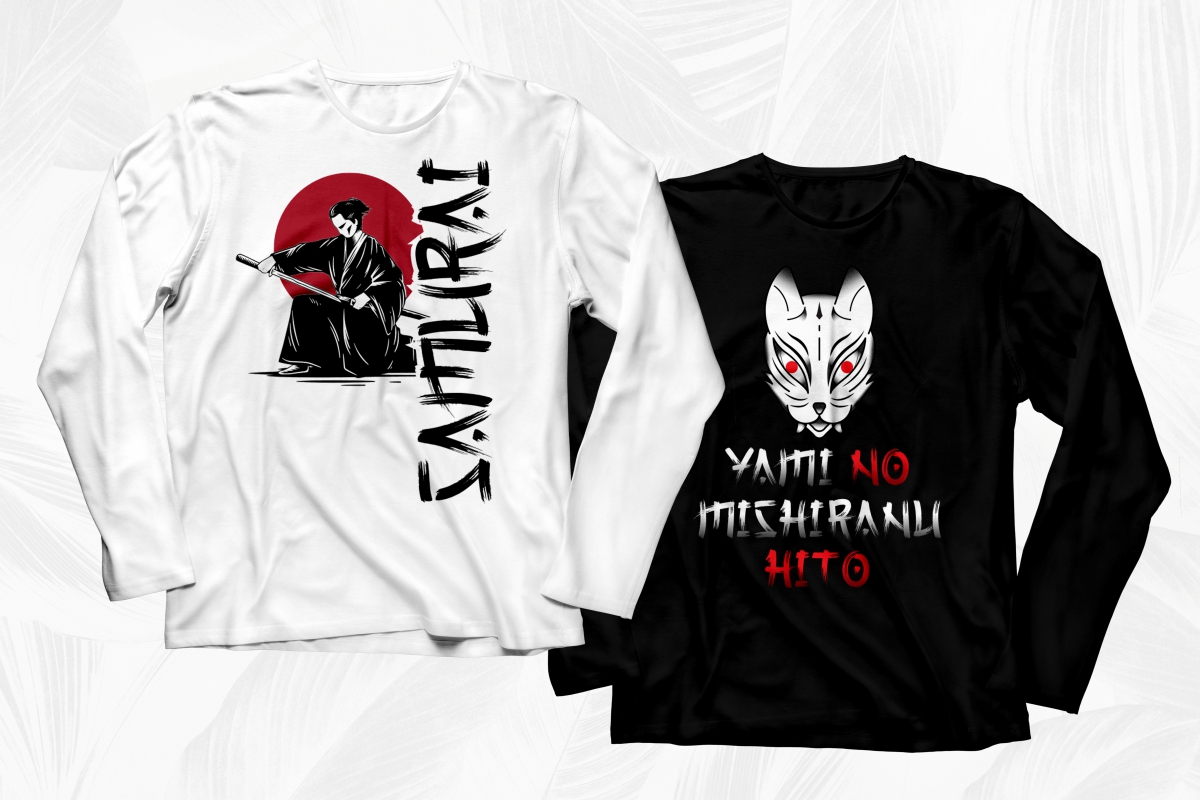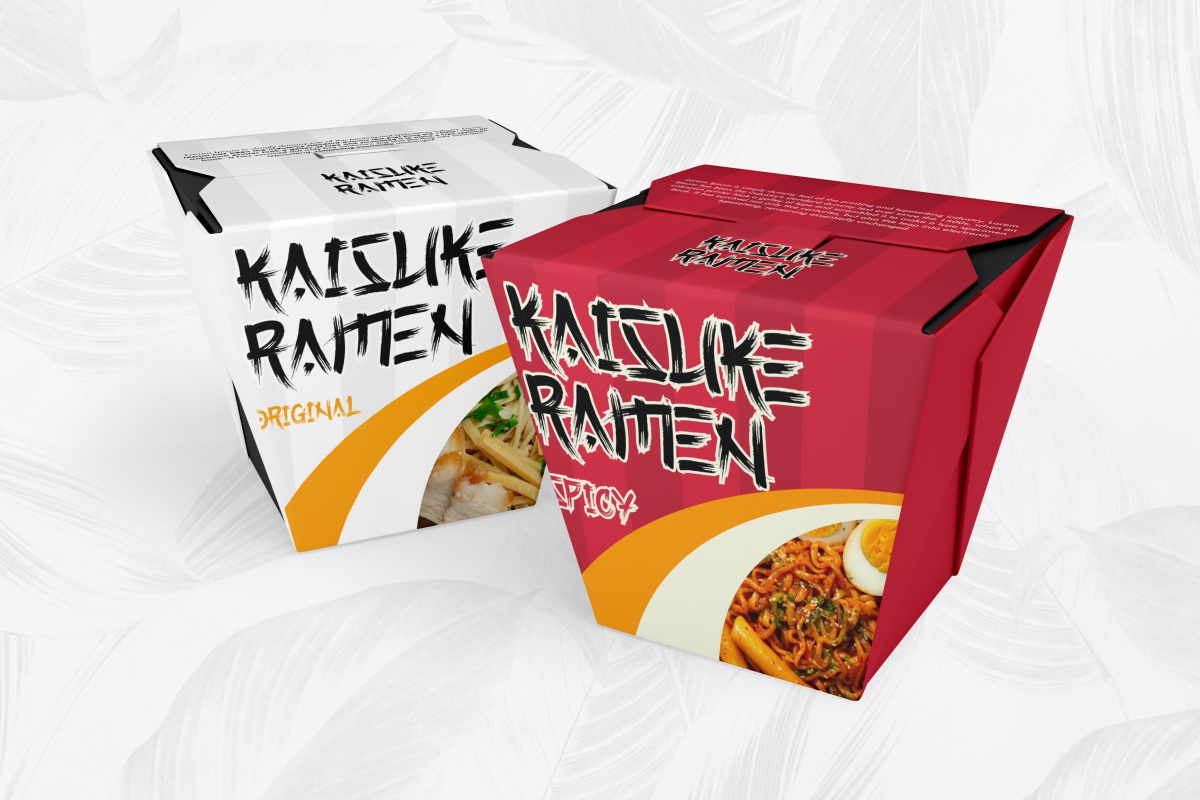
Onsen Japan Font
Onsen Japan Brush Font
It’s a brush display font with special Japanese look made by NoahType. This font will add a personal handwriting look twist to any design project. This font is crafted carefully in every its single scratch, created to look as close to a natural handwritten script so that it can create the perfect combination on each glyph. This brush font is for anyone who are needing of special Japanese look on their designs. This brush font will be awesome for japanese or asian related , fight, karate, movie, music, sport, title, video, writers etc
Onsen Japan Brush Font includes full set of Uppercase and Lowercase Basic Characters, Numerals and Punctuation. Also it contains ligatures and a lot of alternates characters to perfectly make natural writing look that add more beautiful and aesthetic fonts to perfect your extraordinary project. Onsen Japan will be awesome for flyer, headline, logotype, product packaging, poster, shirt, signage etc